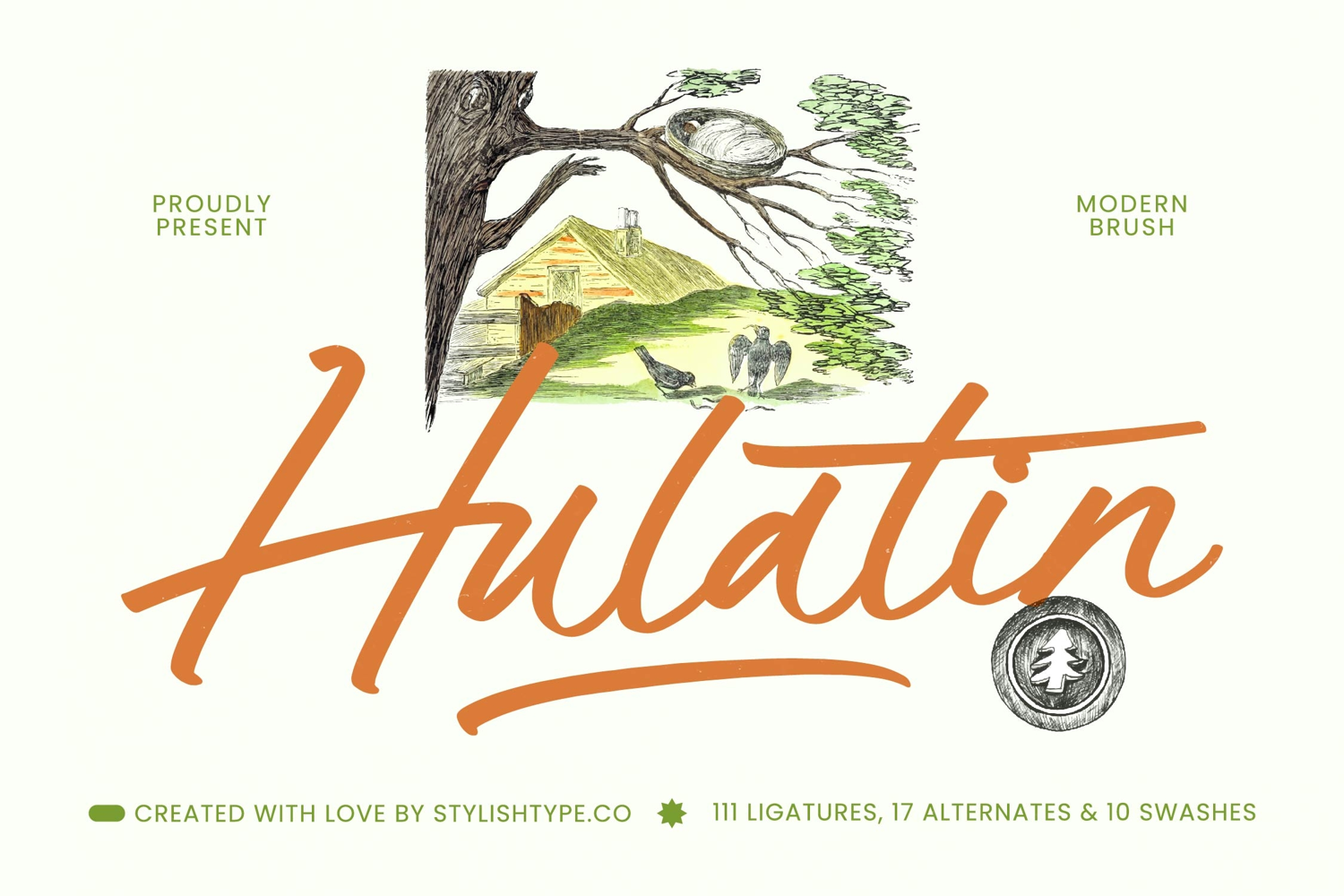
Hulatin - Modern Brush Script
Hulatin Italic
Hulatin
Unleash authentic, hand-drawn character into your designs. The essence of genuine craftsmanship is captured perfectly in Hulatin - Modern Brush Script, a premium typeface designed to deliver instant impactful presence. This modern script boasts beautifully flowing connectivity and high-contrast weight distribution, mimicking the spontaneous energy of real ink on paper. It combines rustic charm with a clean, contemporary execution, ensuring readability while maintaining maximum style for striking visual communication.